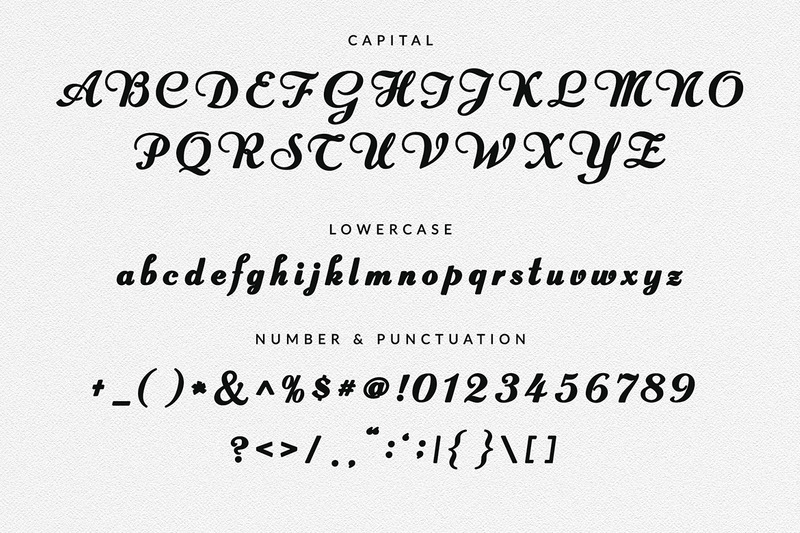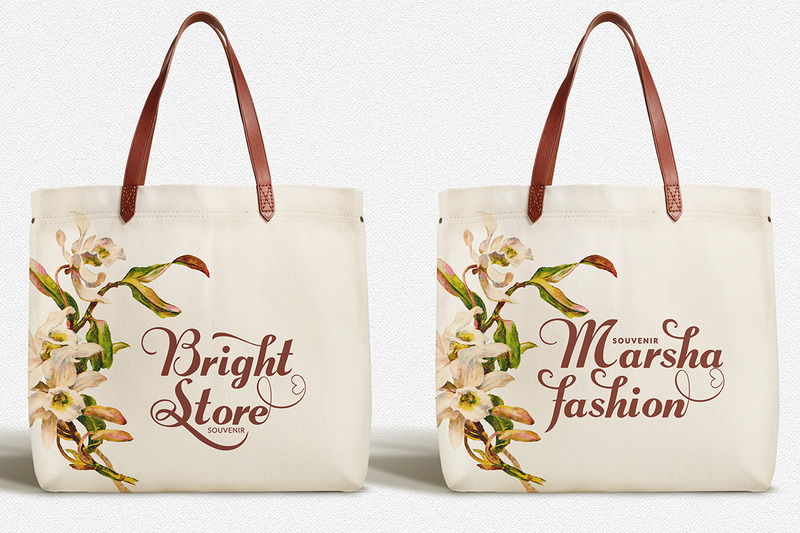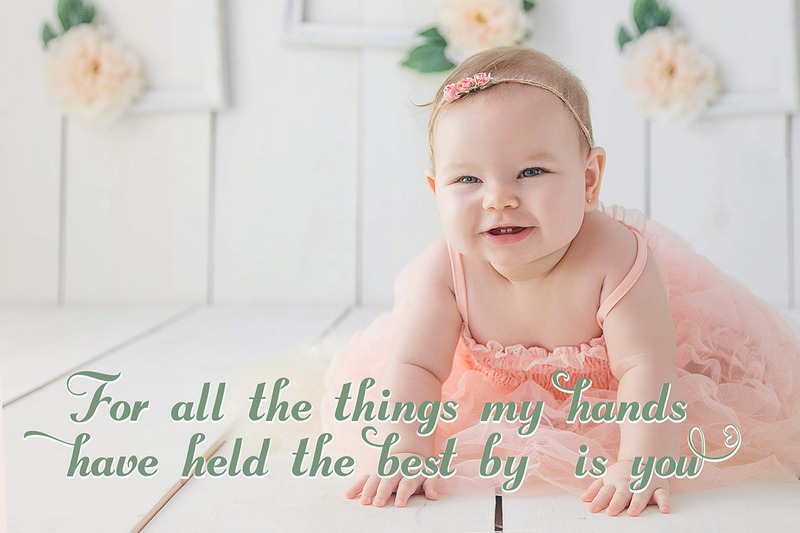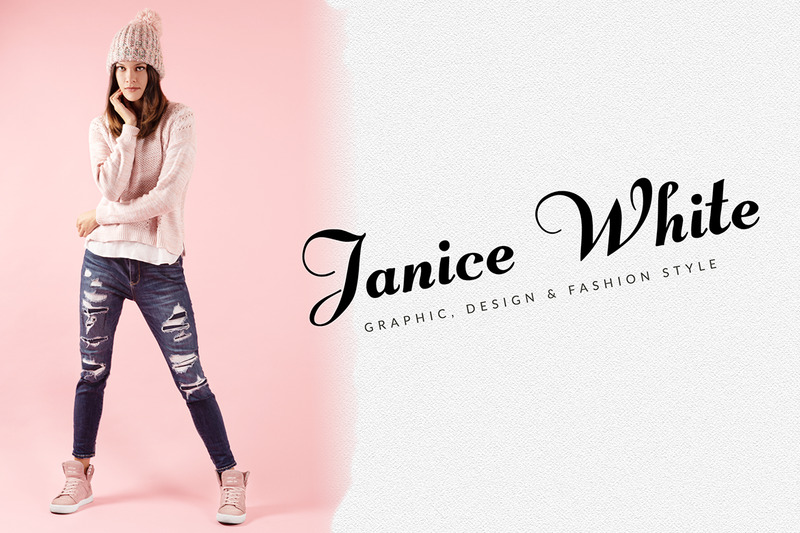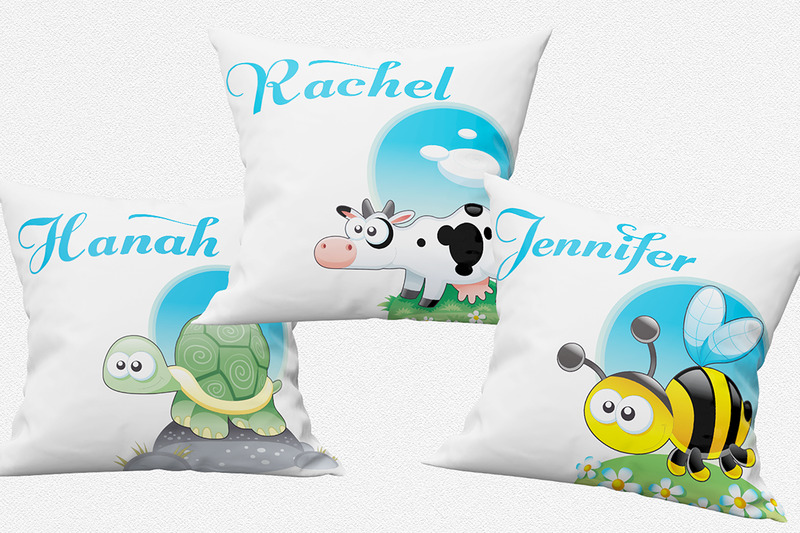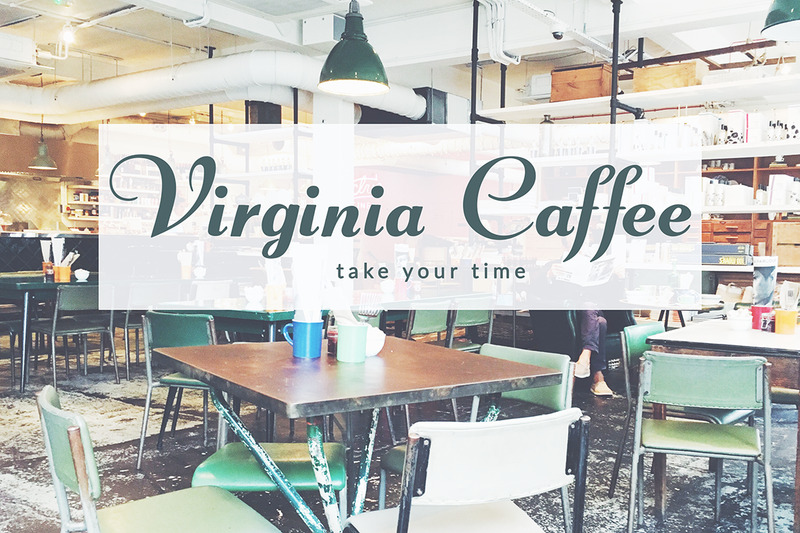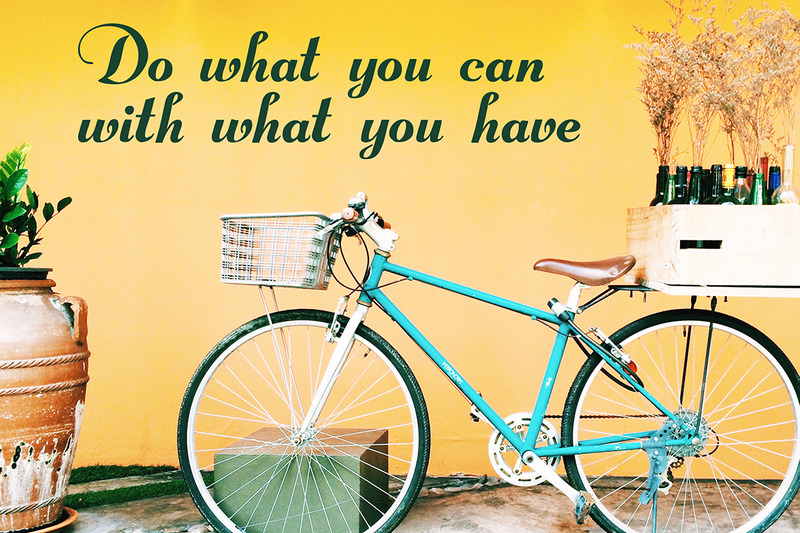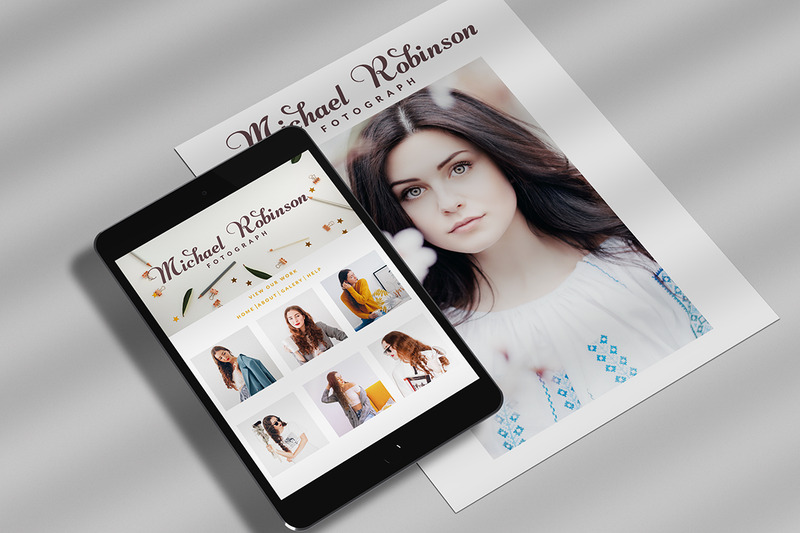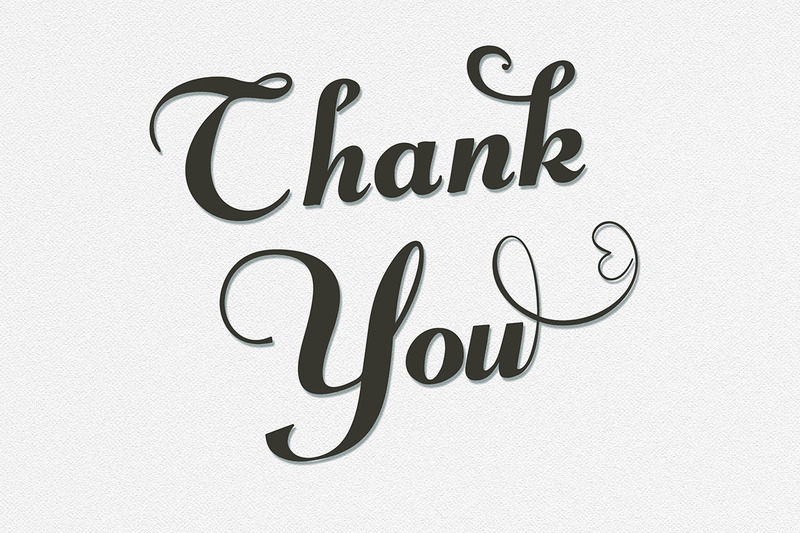
Sinami Handwritten Chic Font
Sinami is a chic handwritten font. The authentic texture makes it a perfect choice. It has a bold classic calligraphy look making it perfect for branding and digital designs, logos, invitations, business cards, web, instagram, social media, quotes, prints, wall decor, Branding projects, and more! whats you get: Sinami works on PC & Mac Simple installations Supports multi linguage and alternate charachter.